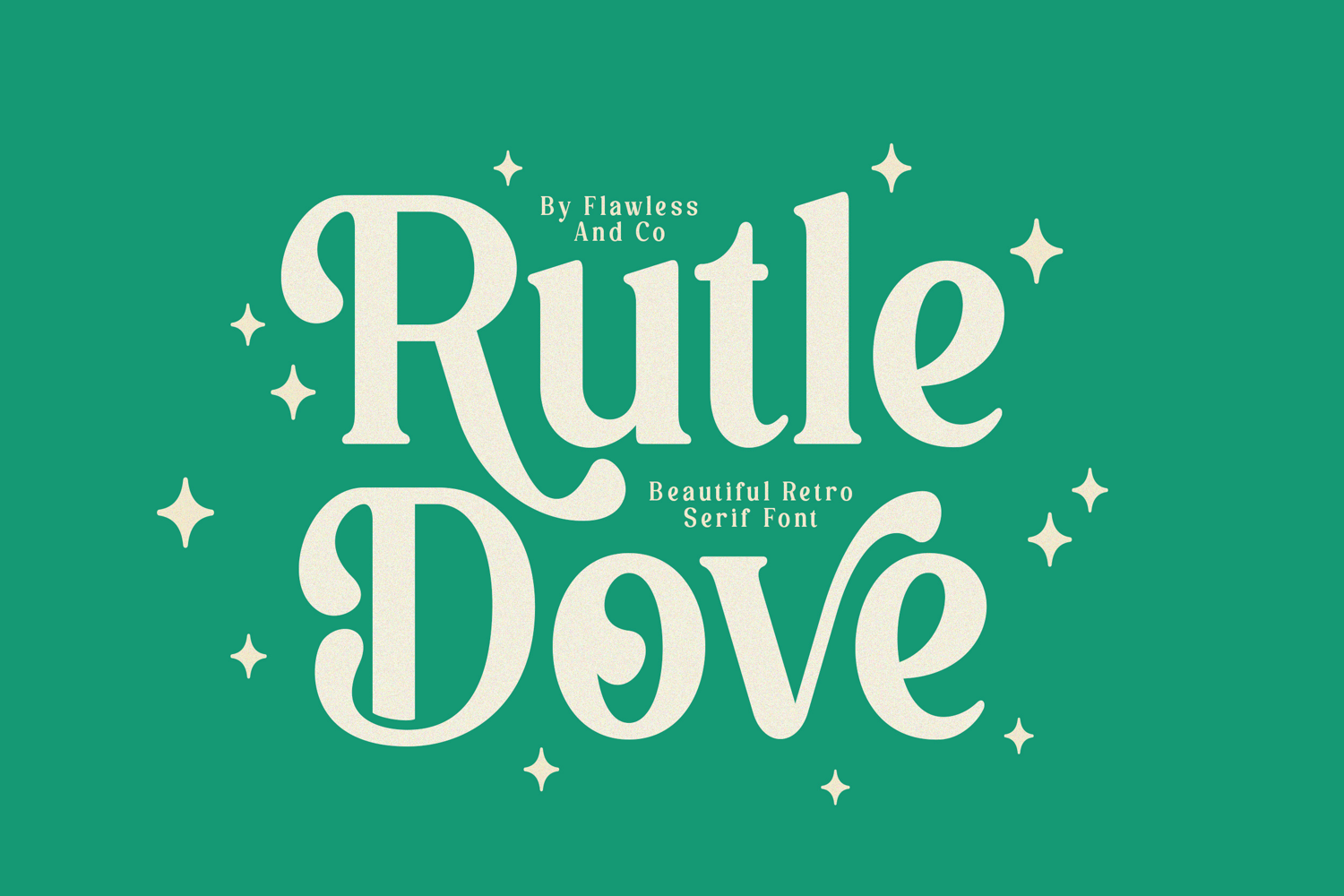
Rutle Dove
RUTLEDOVE
Rutle Dove - Elegant Retro Serif Font
Rutle Dove is a retro serif font that celebrates timeless elegance with a nostalgic soul and a contemporary finish. Designed with bold vintage-inspired serifs, graceful curves, and distinctive character shapes, Rutle Dove captures the unmistakable charm of classic typography while remaining fresh for today's creative world. Every letter radiates warmth, personality, and sophistication, making your designs instantly memorable.
Who should use Rutle Dove?
Rutle Dove is made for graphic designers, branding agencies, boutique businesses, creative entrepreneurs, publishers, and anyone looking for a serif font that blends retro elegance with contemporary versatility. Whether you're crafting a premium brand or a nostalgic visual identity, Rutle Dove helps every design leave a lasting impression.
Vintage logo and branding
Boutique and lifestyle brands
Coffee shops and bakery branding
Product packaging and labels
Editorial and magazine design
Book covers and posters
Wedding stationery and invitations
Retro-inspired typography